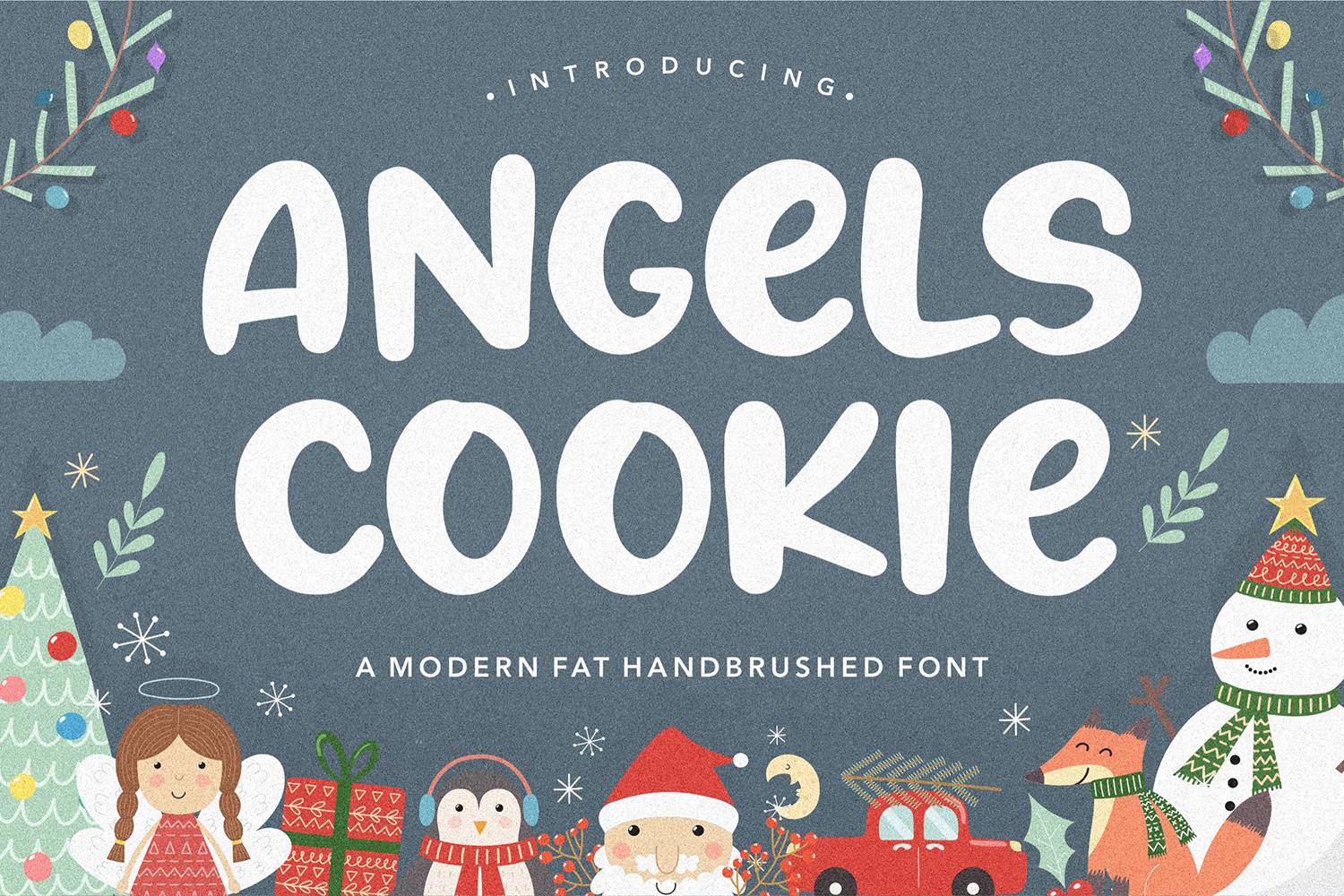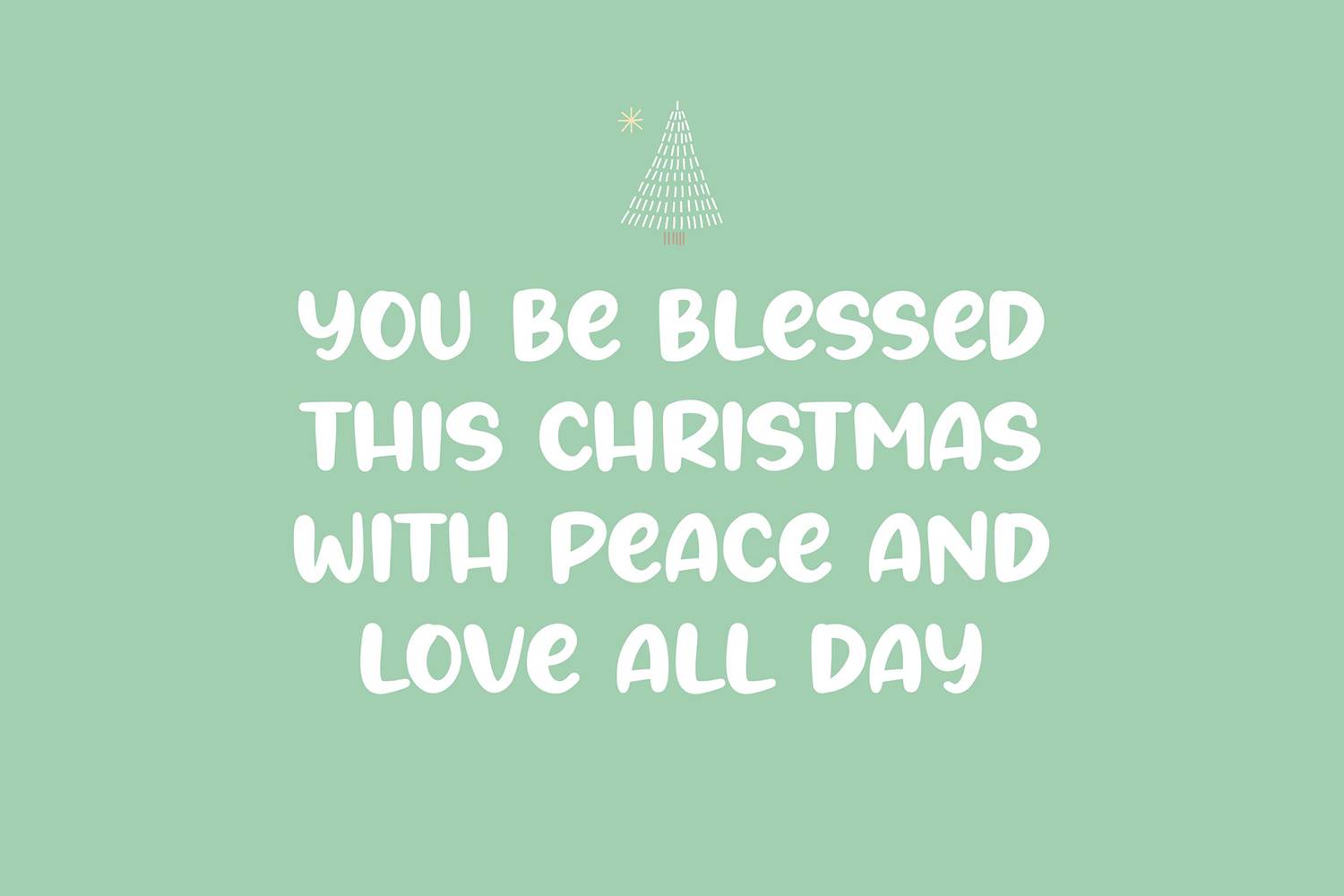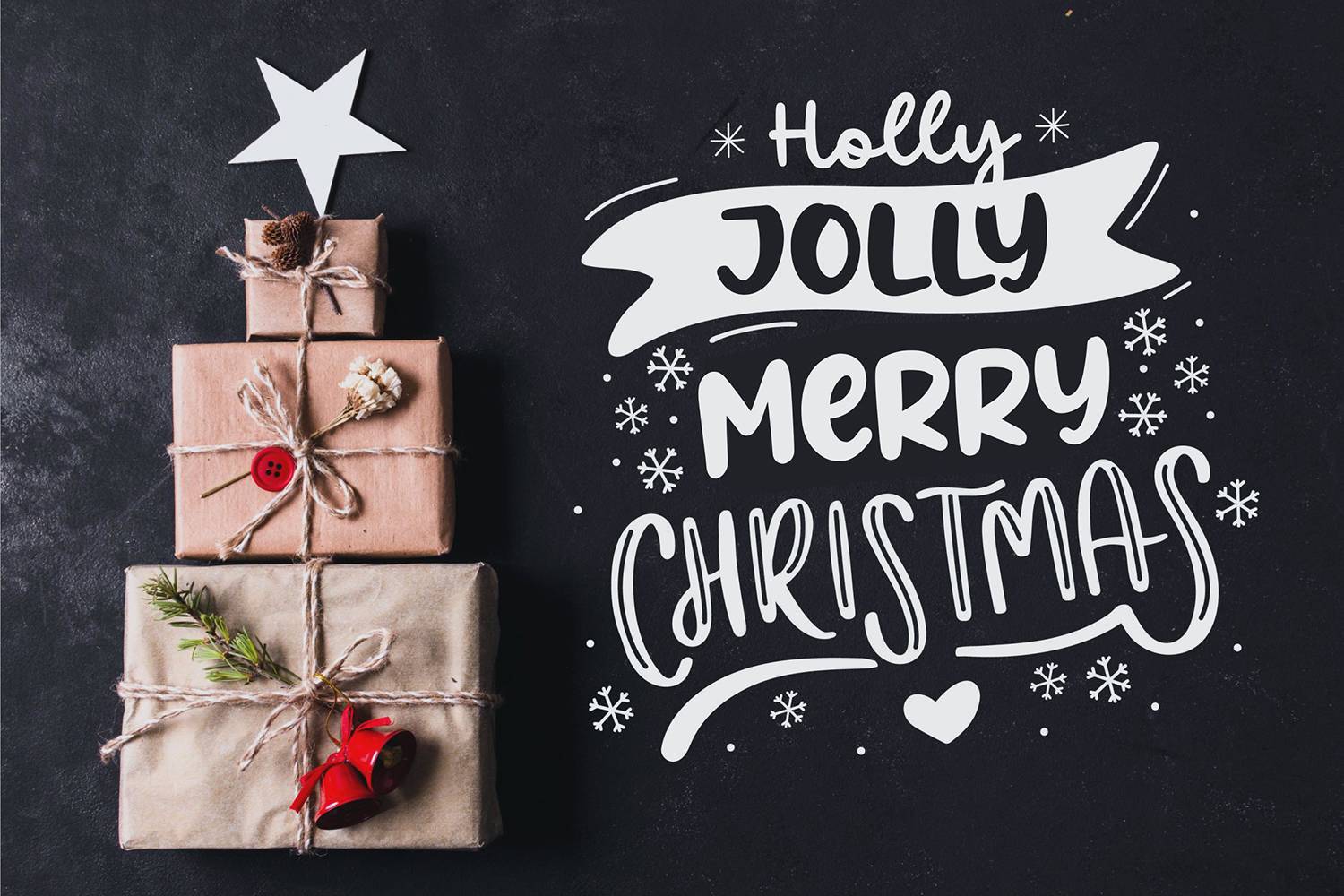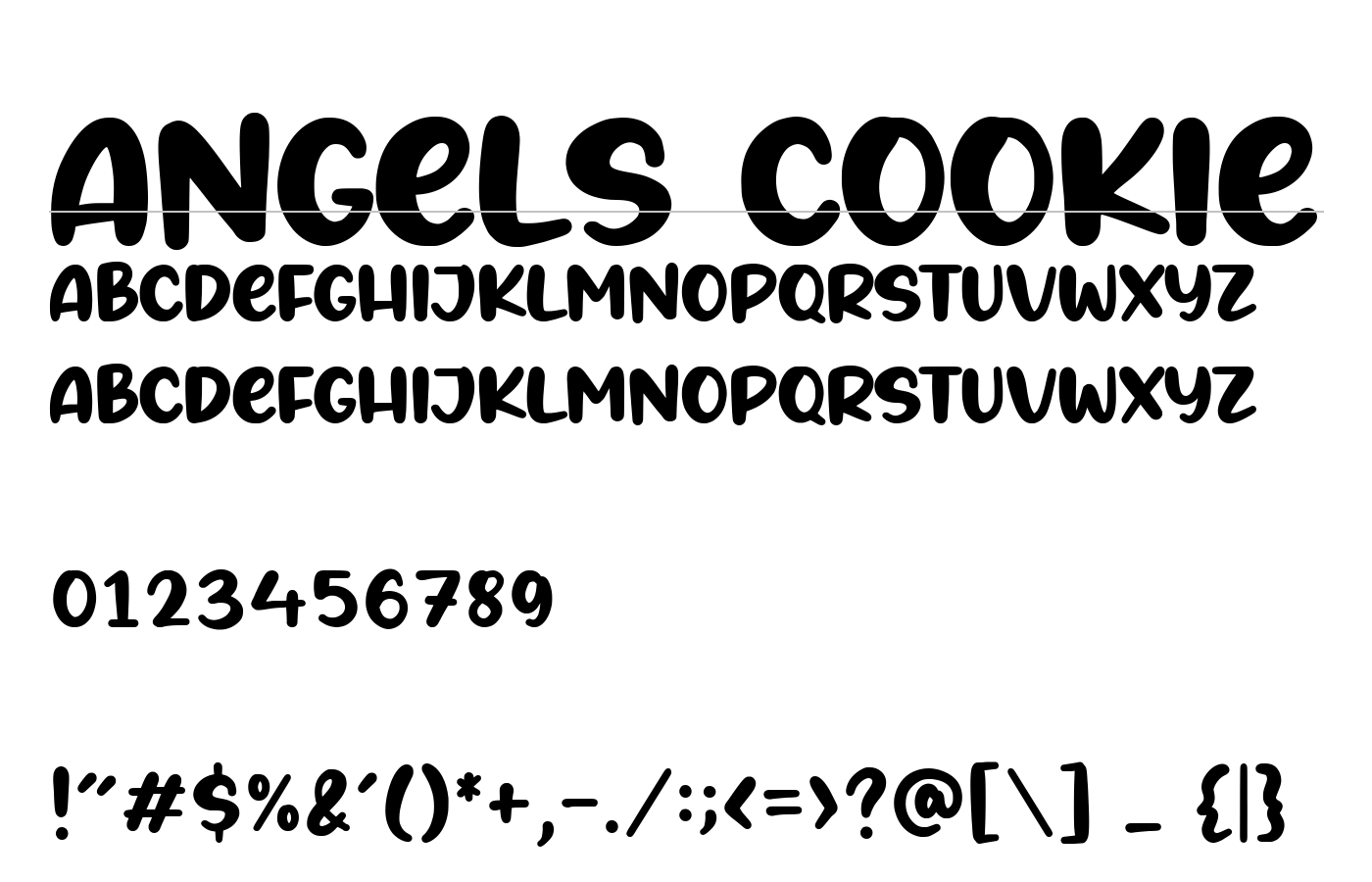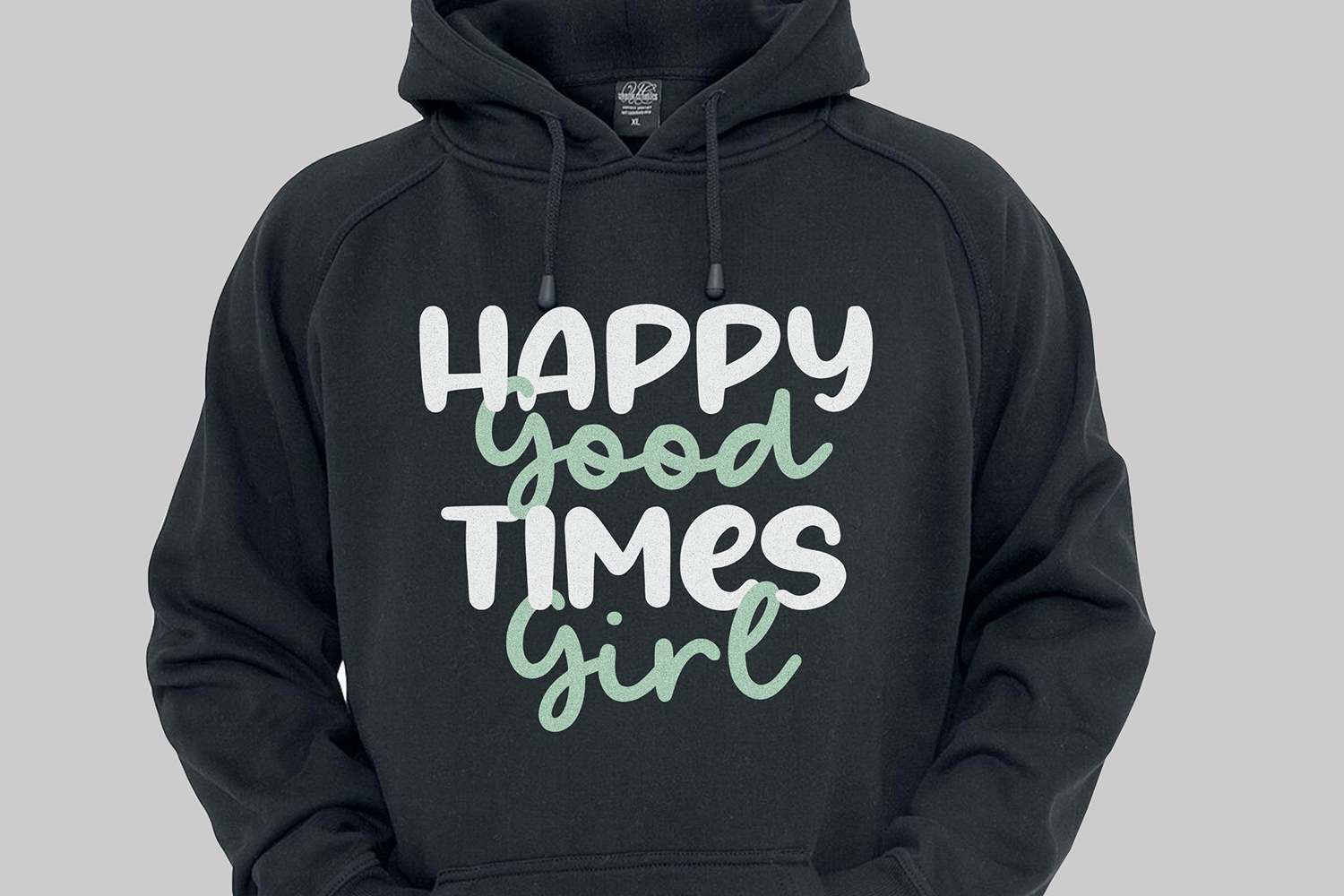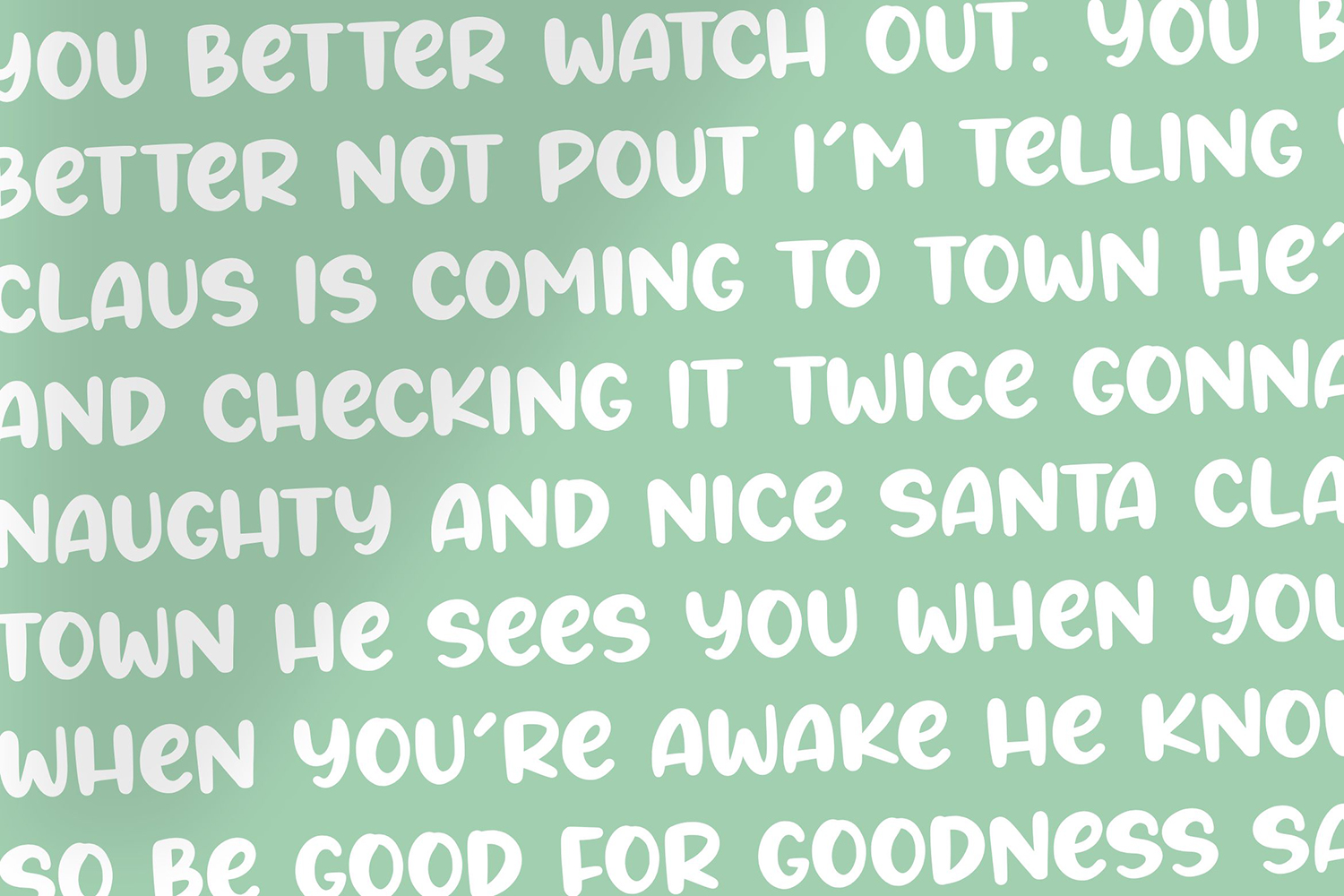
Angels Cookie is a playful and rounded handwritten sans serif font that conveys a friendly and casual vibe. With its bold weight, soft curves, and slightly irregular letterforms, it feels approachable and lively, making it perfect for children's products, informal branding, and fun, creative designs. This font works well for headlines, logos, and packaging where a warm, inviting personality is desired.
Angels Cookie Font
About Angels Cookie Font